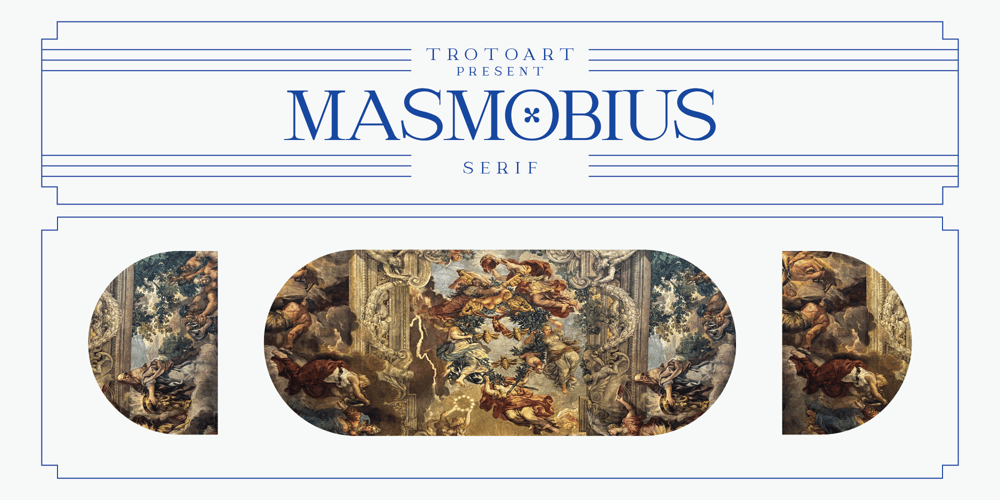
Masmobius Font Family was designed by Afdalul Zikri and published by Afdalul Zikri. Masmobius contains 2 styles and family package options. Masmobius is a modern and elegant serif font. Contemporary and fresh, this font is perfect for a wide pool of design ideas. Add it confidently to your projects and you will love the results! Masmobius is PUA encoded which means you can access all the glyphs and ligatures with ease!